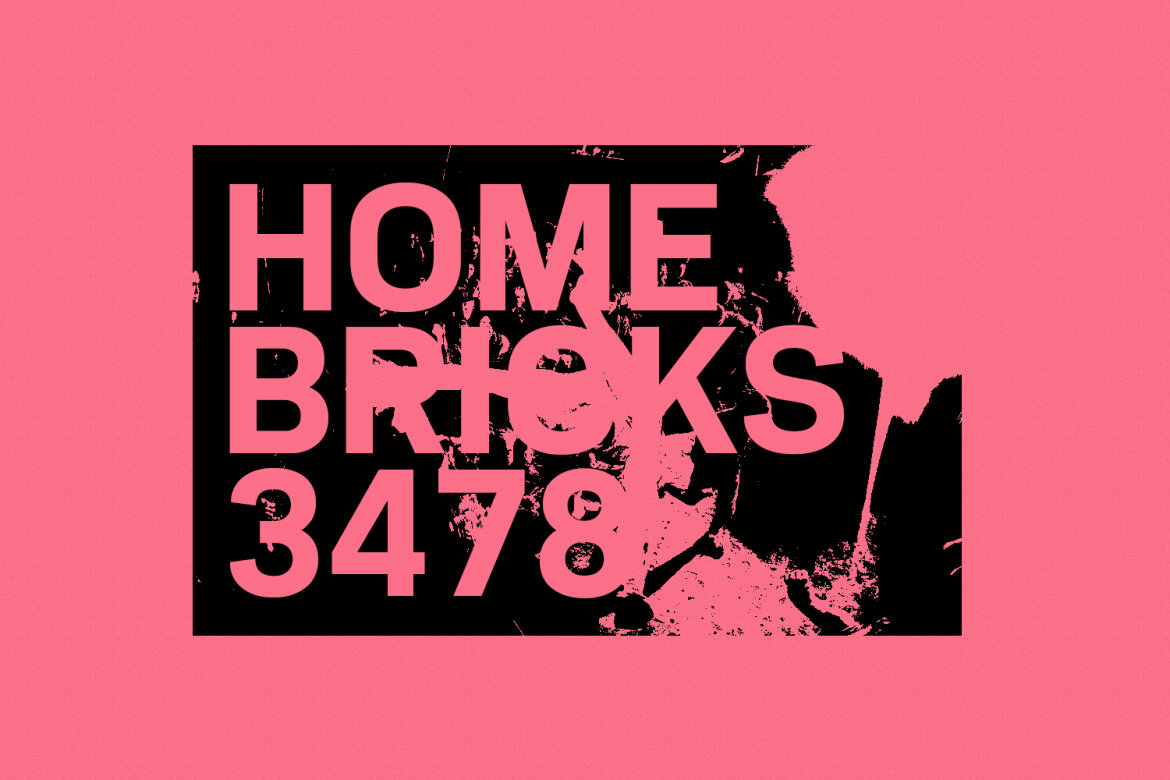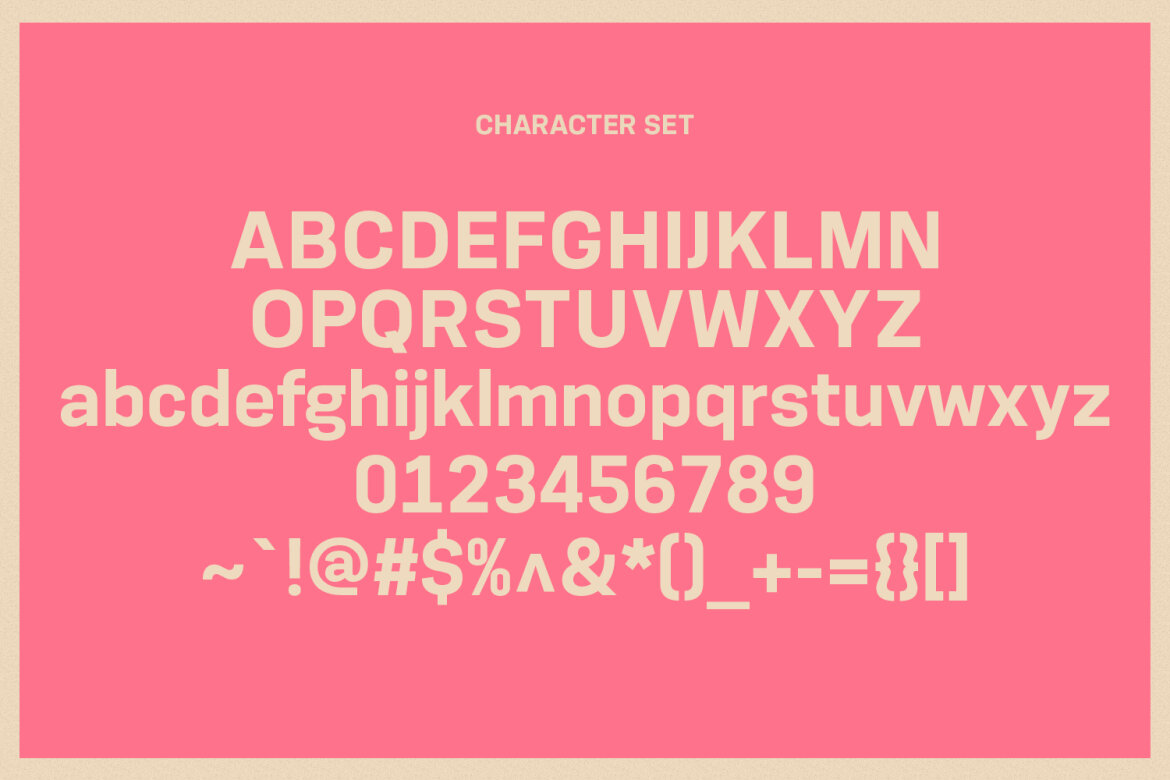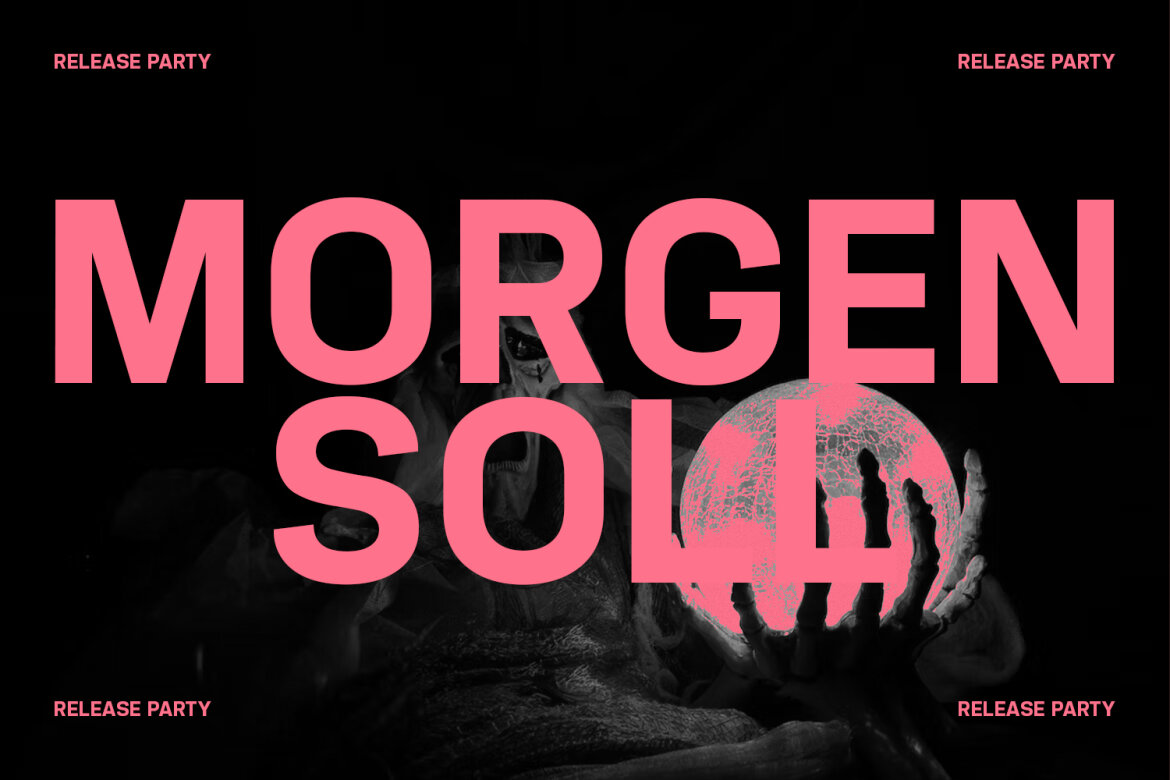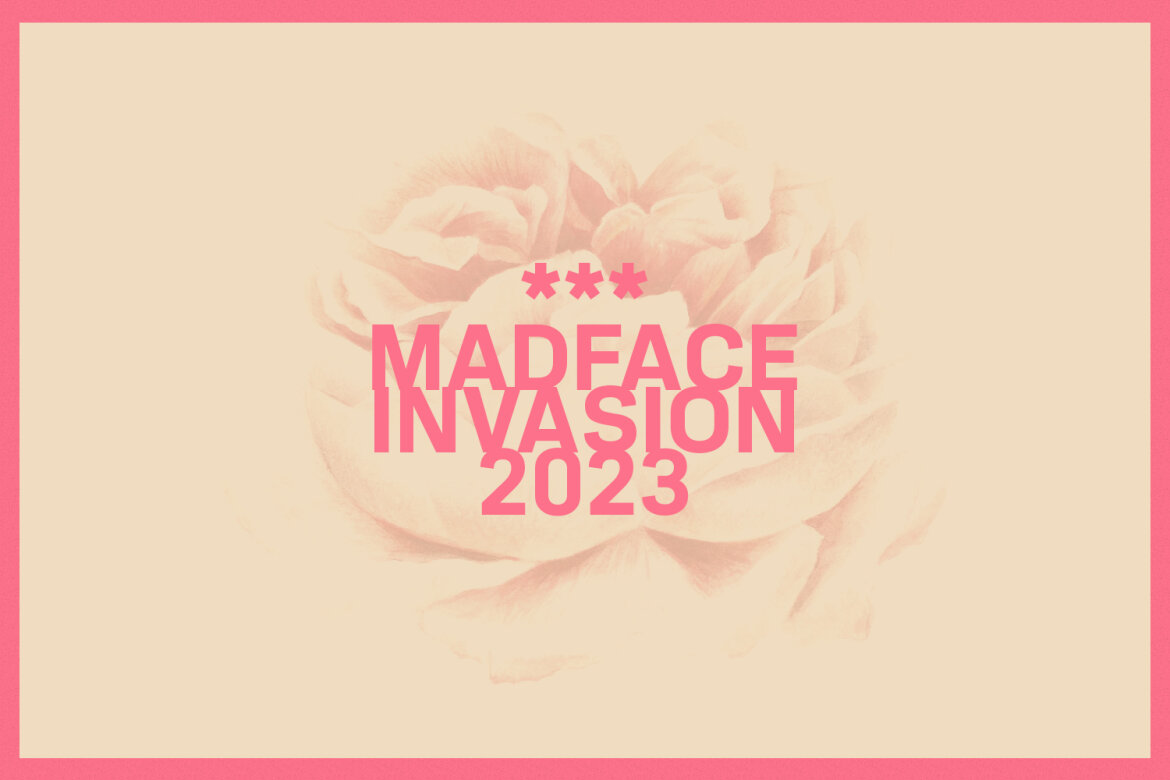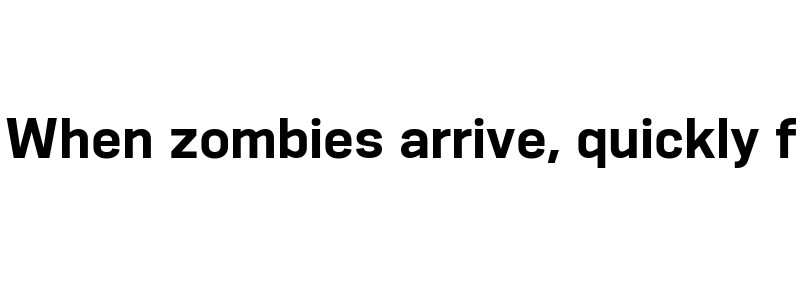
Rigsta Sans Serif FREE Font
Rigsta
Rigsta is a simply casual retro sans Display font. Bold stroke, fun character with a bit of ligatures and alternates. To give you an extra creative work. Rigsta font support multilingual more than 100+ language. This font is good for logo design, Social media, Movie Titles, Books Titles, a short text even a long text letter and good for your secondary text font with script or serif. Make a stunning work with Rigsta font.